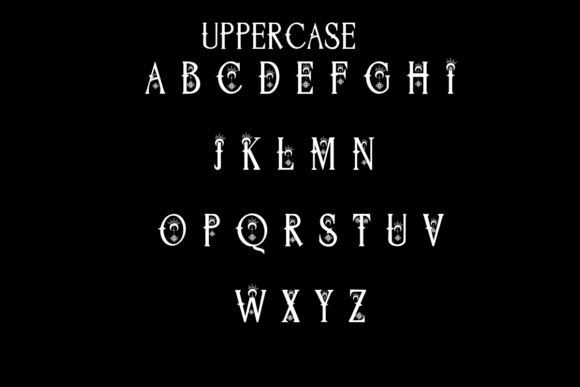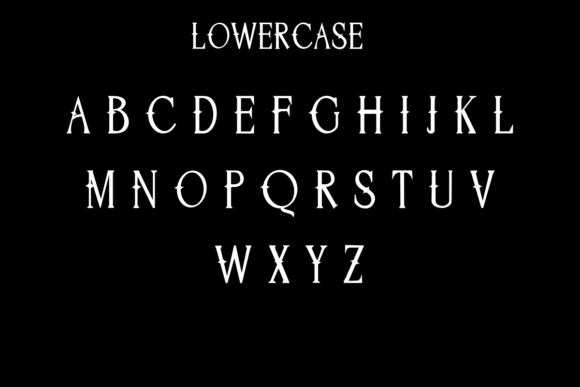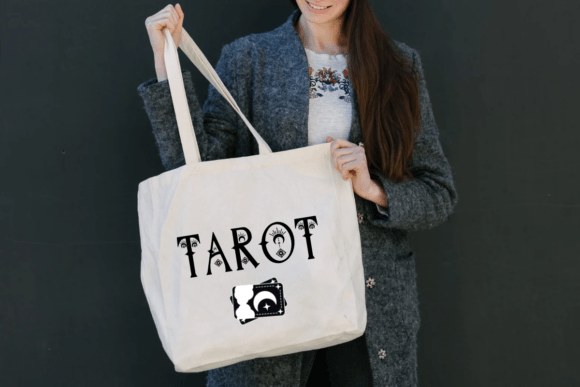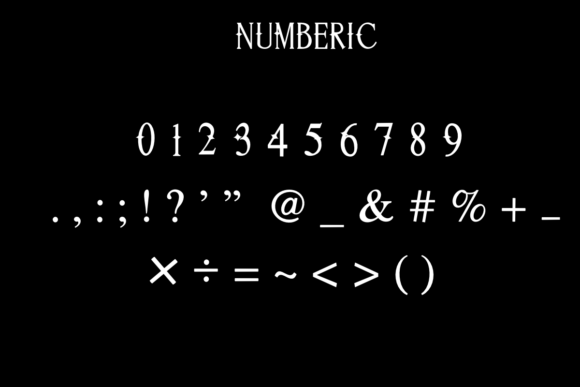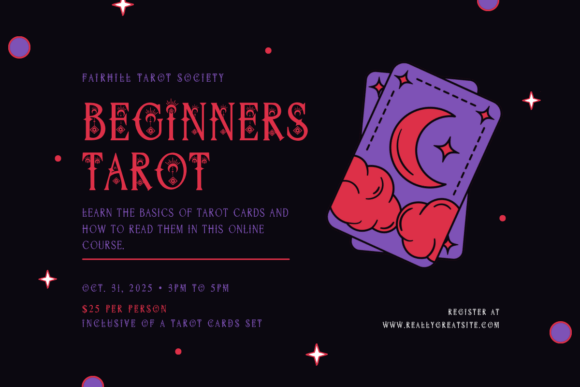
Step into a world of mystery and magic with Soul Cards, a decorative display font inspired by the beauty of tarot, celestial symbols, and arcane energy.
Each letter carries ornate details that evoke the allure of sacred geometry and mystical design. Perfect for projects that call for enchantment — from tarot decks and book covers to fantasy logos, posters, and spellbinding invitations.
Soul Cards combines sharp serifs with graceful embellishments, creating an otherworldly atmosphere that instantly captivates the eye. Every glyph feels like a charm — designed to awaken creativity and wonder.
Use it to give your work an aura of mysticism, elegance, and power.
Highlights:
Decorative uppercase and refined lowercase sets
Unique celestial ornaments and eye-catching accents
Perfect for mystical, gothic, or fantasy-inspired designs
Works beautifully on branding, packaging, and editorial titles
Let your imagination ascend — with Soul Cards, your words become visual incantations.